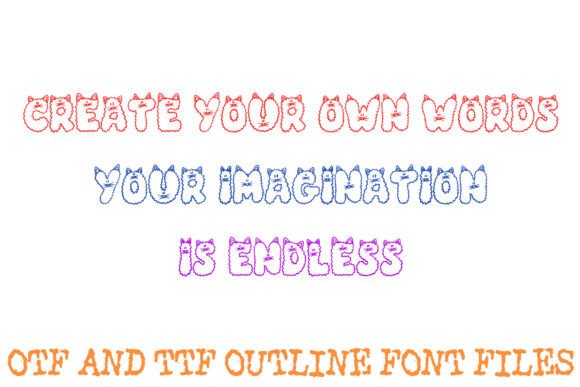
Add a Purr-fect Touch of Whimsy to Your Designs with the Fluffy Cat Cartoon Font!
Are you a designer or crafter looking for a unique and playful font to add a touch of whimsy to your designs? Look no further than the Fluffy Cat Cartoon Font! This adorable display alphabet features characters transformed into fluffy, long-haired felines, complete with cute ears, whiskers, and tiny pink noses. The Fluffy Cat font is the ultimate choice for pet-themed branding, nursery wall art, children’s birthday invitations, and playful social media graphics.
A Furry and Irregular Outline
Each letter and number in the Fluffy Cat font is meticulously designed with a “furry” irregular outline to mimic soft kitten fur, bringing a cozy and handcrafted feel to your typography. The font’s unique design makes it perfect for creating personalized gifts for cat lovers or designing fun classroom materials. The Fluffy Cat font offers a charming and friendly aesthetic that is sure to delight children and pet lovers alike.
Perfect for Nursery and Pet-Themed Designs
Designing for a nursery or a cat cafĂ©? The Fluffy Cat font is your perfect companion. Its playful and engaging design makes it highly suitable for educational materials, storybooks, and birthday party invitations. The font’s adorable characters are sure to capture the hearts of children and adults alike, making it an excellent choice for a wide range of design projects.
Key Features of the Fluffy Cat Font
- Unique Design: Each character is transformed into a fluffy, long-haired feline, complete with cute ears, whiskers, and tiny pink noses.
- Furry Outline: The font features a “furry” irregular outline to mimic soft kitten fur, giving it a cozy and handcrafted feel.
- Playful Aesthetic: The Fluffy Cat font offers a charming and friendly aesthetic that is sure to delight children and pet lovers alike.
- Highly Engaging: The font’s playful design makes it highly engaging for children and pet lovers, making it perfect for educational materials and storybooks.
Use Cases for the Fluffy Cat Font
The Fluffy Cat font is versatile and can be used for a wide range of design projects, including:
- Pet-Themed Branding: Create adorable and memorable branding for pet-related businesses, such as pet stores, cat cafes, or animal shelters.
- Nursery Wall Art: Design beautiful and playful nursery wall art, such as alphabet posters or inspirational quotes, that will delight children and parents alike.
- Children’s Birthday Invitations: Create fun and playful birthday invitations that will set the tone for a memorable celebration.
- Playful Social Media Graphics: Design engaging and shareable social media graphics that will capture the hearts of your followers.
- Educational Materials: Create educational materials, such as alphabet charts or storybooks, that will engage and educate children.
Tips for Using the Fluffy Cat Font
To get the most out of the Fluffy Cat font, here are a few tips:
- Use it as a Display Font: The Fluffy Cat font works best as a standalone display font, so use it to create eye-catching headlines or titles.
- Pair it with a Simple Font: Pair the Fluffy Cat font with a simple font to create a striking contrast and add visual interest to your design.
- Experiment with Colors: The Fluffy Cat font looks great in a range of colors, so don’t be afraid to experiment and find the perfect color scheme for your design.
The Fluffy Cat Cartoon Font is a unique and playful font that is perfect for designers and crafters looking to add a touch of whimsy to their designs. With its adorable characters, furry outline, and playful aesthetic, it’s sure to delight children and pet lovers alike. Whether you’re creating pet-themed branding, nursery wall art, or educational materials, the Fluffy Cat font is the perfect choice. So why not give it a try and see how it can bring a purr-fect touch of whimsy to your designs?